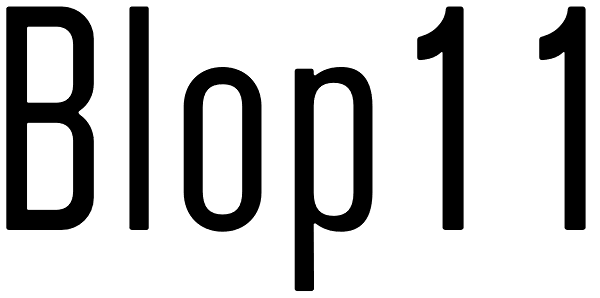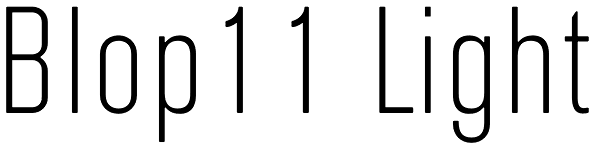
Blop11
Blop11 is a geometric sans-serif type family, consisting of 3 weights. Blop11 Bold is inspired by 1800s-style wood, poster typeface. Owing to its rounded terminals, Blop preserves natural organic quality of wood typeface. The Regular and Light...
Blop11 Bold
Blop11
Blop11 Light